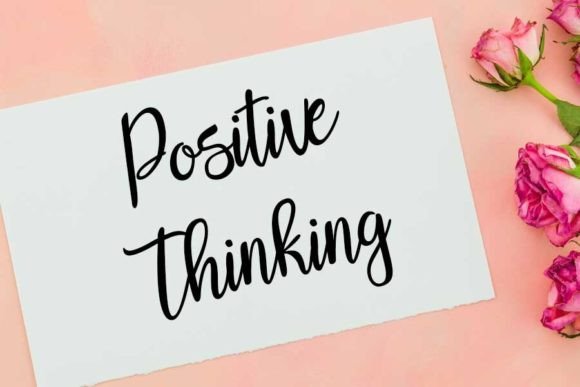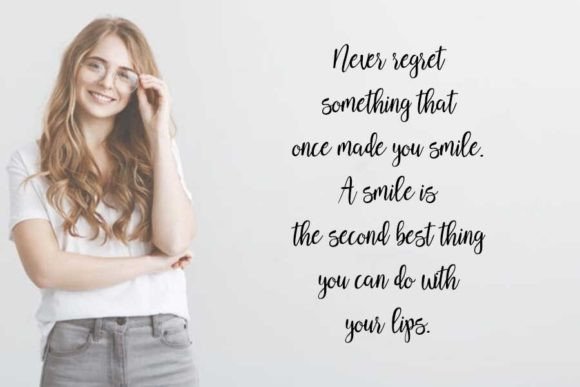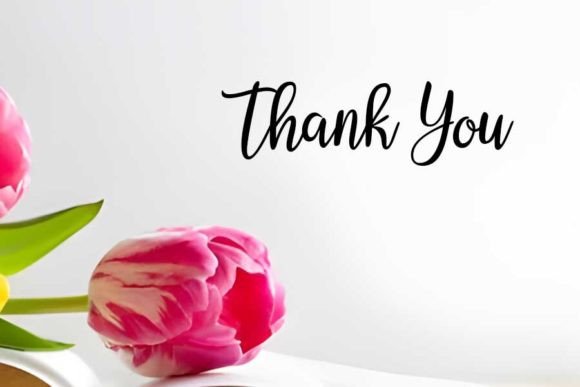
The Perfect Companion for Your Next Creative Project
There’s nothing quite like the thrill of sitting in front of a blank canvas, waiting for inspiration to strike. You’ve got a spark in your mind, a vague idea of what you want to create, and a feeling that it’s going to be something truly special. But as you start to bring your vision to life, you need the right tools to help you express yourself. That’s where the Brilliant Font comes in – a relaxed and laid-back handwritten font that’s the perfect companion for your next creative project.
Whether you’re a graphic designer, writer, or artist, the Brilliant Font has the potential to elevate your work and make it truly shine. Its unique, handwritten style adds a touch of personality and whimsy to any project, making it a valuable asset to have in your font library. With the Brilliant Font, you can add a personal touch to your designs, connect with your audience on a deeper level, and create something truly remarkable.
Brilliant Font Key Features
- Font Family: Brilliant Font comes in 4 unique styles: Regular, Italic, Bold, and Bold Italic.
- Unique Characteristics: The font features a unique blend of modern and classic elements, with a distinctive x-height and refined letterforms that make it highly readable and visually appealing.
- Language Support: Brilliant Font supports a wide range of languages, including Latin, Cyrillic, and Greek alphabets, making it a versatile choice for global applications.
Designer Review: Brilliant Font
Overall, I’m quite impressed with the Brilliant Font. Here are some of its standout features: ✨
- Unique Character Set: The font comes with a wide range of unique characters and glyphs, making it perfect for designers who want to add a touch of personality to their designs.
- Flexibility: The font can be easily customized to fit different design styles, from modern and sleek to vintage and elegant.
- High-Quality Rendition: The font renders beautifully across various devices and platforms, ensuring that your designs look professional and polished.
- Not Ideal for Small Text: The font’s unique character set and stylish design make it less suitable for small text sizes, as it can become difficult to read.
Overall, I would give the Brilliant Font 4 out of 5 stars. It’s a great choice for designers who want to add a touch of elegance and sophistication to their designs, but may require some tweaking to get the best results.
Tips for Getting the Most Out of Brilliant Font
For optimal results, use Brilliant Font in combination with bold or italic styles to create a striking visual effect.
Experiment with different font sizes to emphasize key points in your design.
Brilliant Font is ideal for:
- Creating eye-catching headlines and titles.
- Adding a touch of sophistication to business presentations.
- Designing visually appealing marketing materials.
Alternatives to Brilliant Font for Designers
Montserrat is a sans-serif typeface designed by Julieta Ulanovsky. It is ideal for use in digital products, such as mobile apps and websites, where a clean and modern aesthetic is desired. Montserrat is more geometric in its design compared to Brilliant Font, making it a popular choice for designers who want to create a more futuristic look.
Open Sans is a popular sans-serif typeface designed by Steve Matteson. It is highly legible and versatile, making it suitable for a wide range of applications, including body text, headings, and titles. Open Sans is more rounded and friendly in its design compared to Brilliant Font, making it a great choice for designers who want to create a more approachable brand identity.